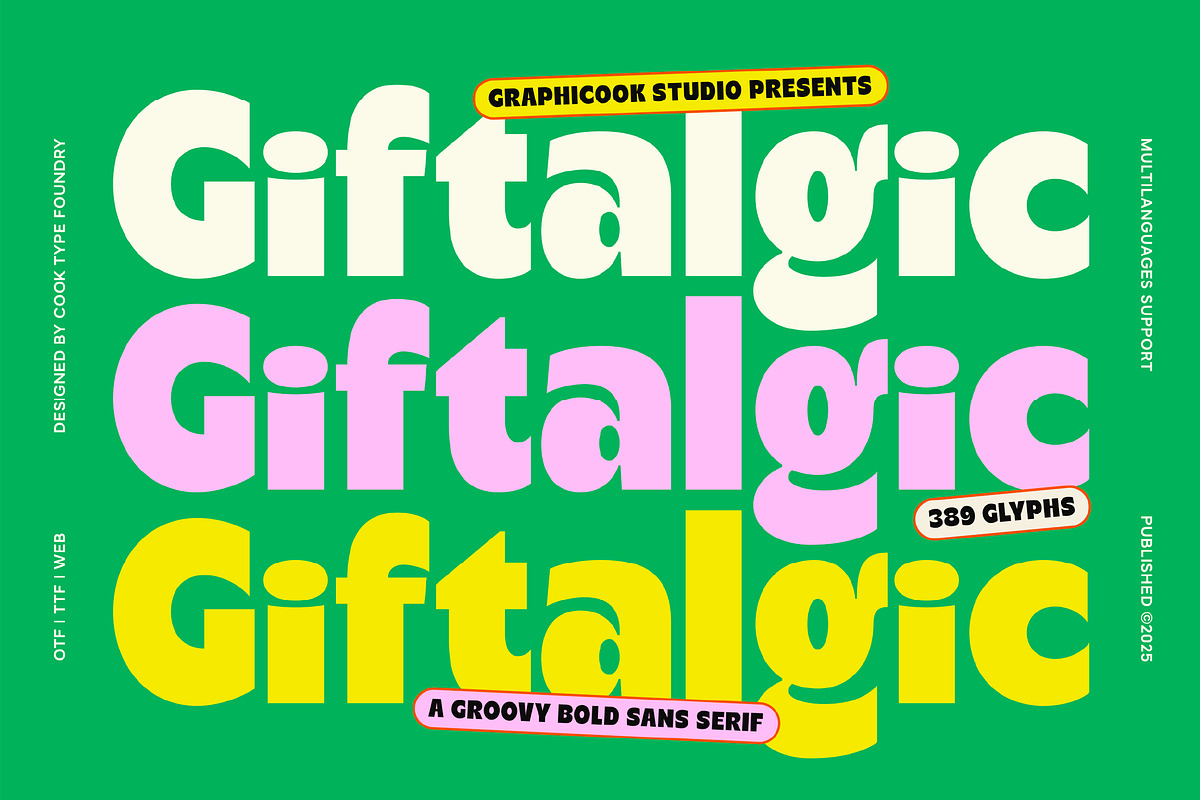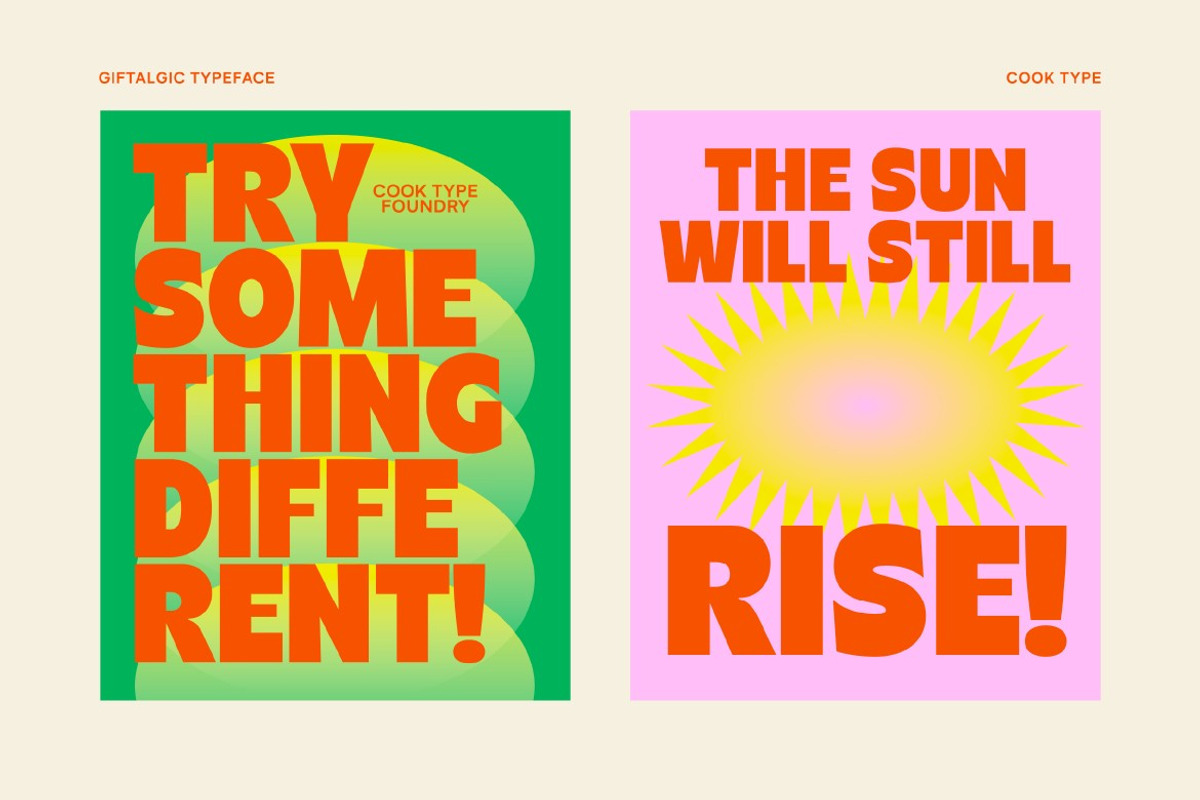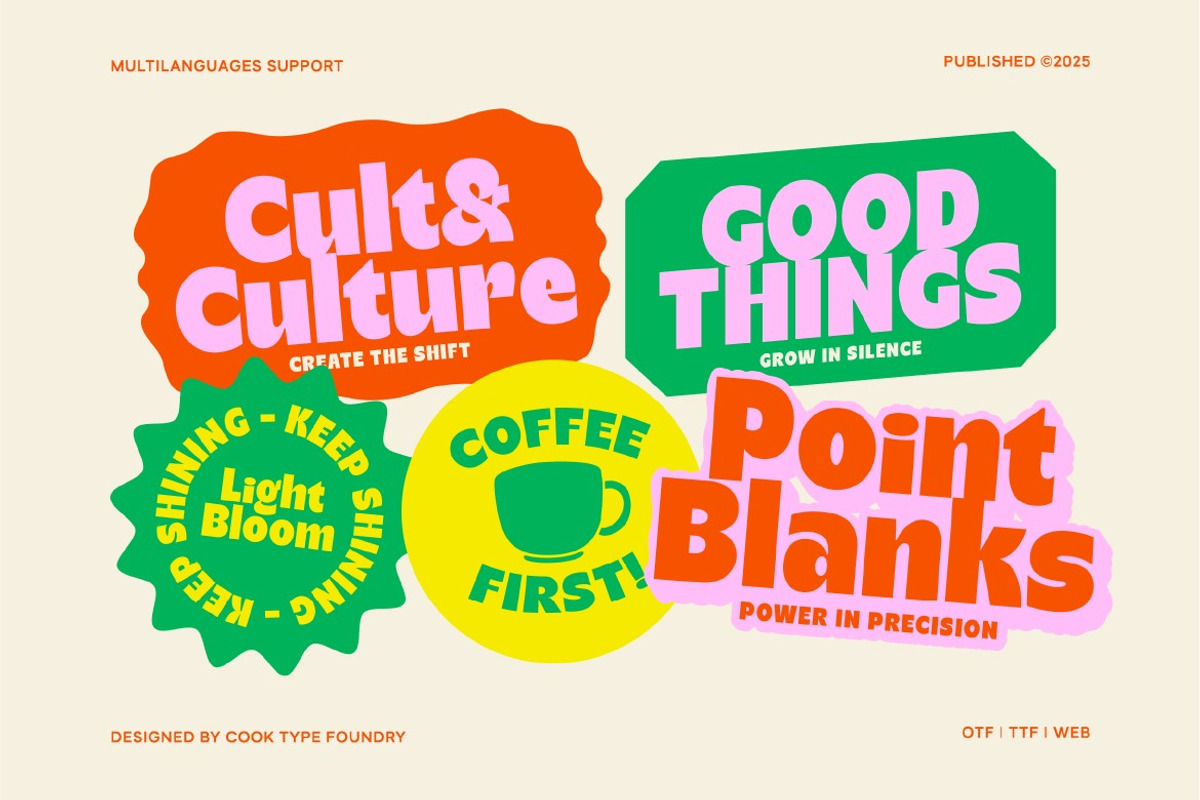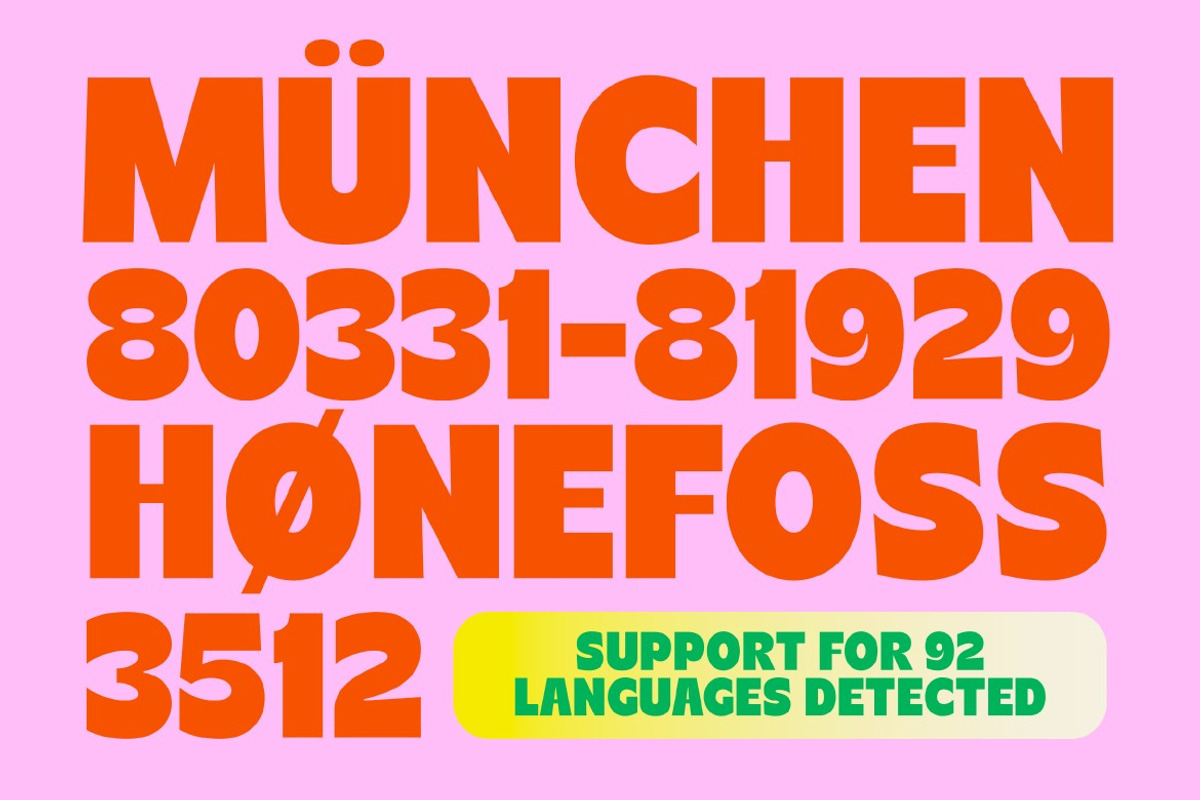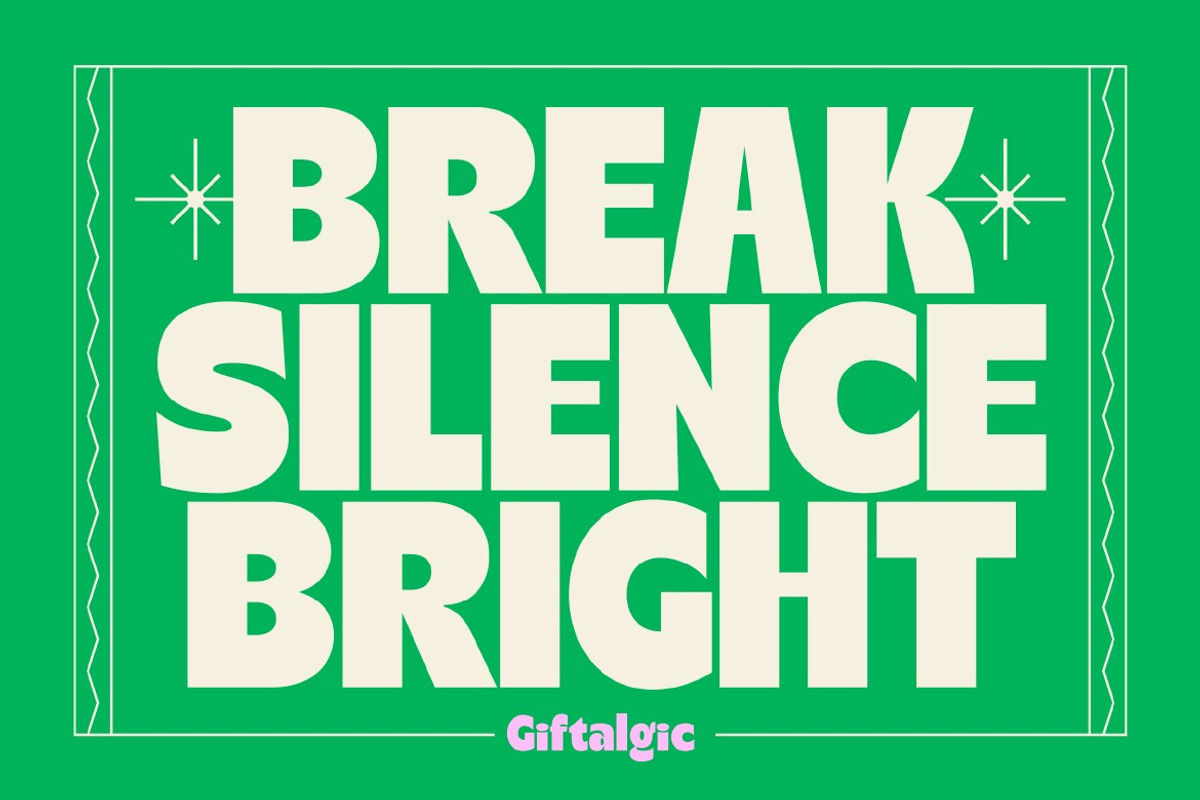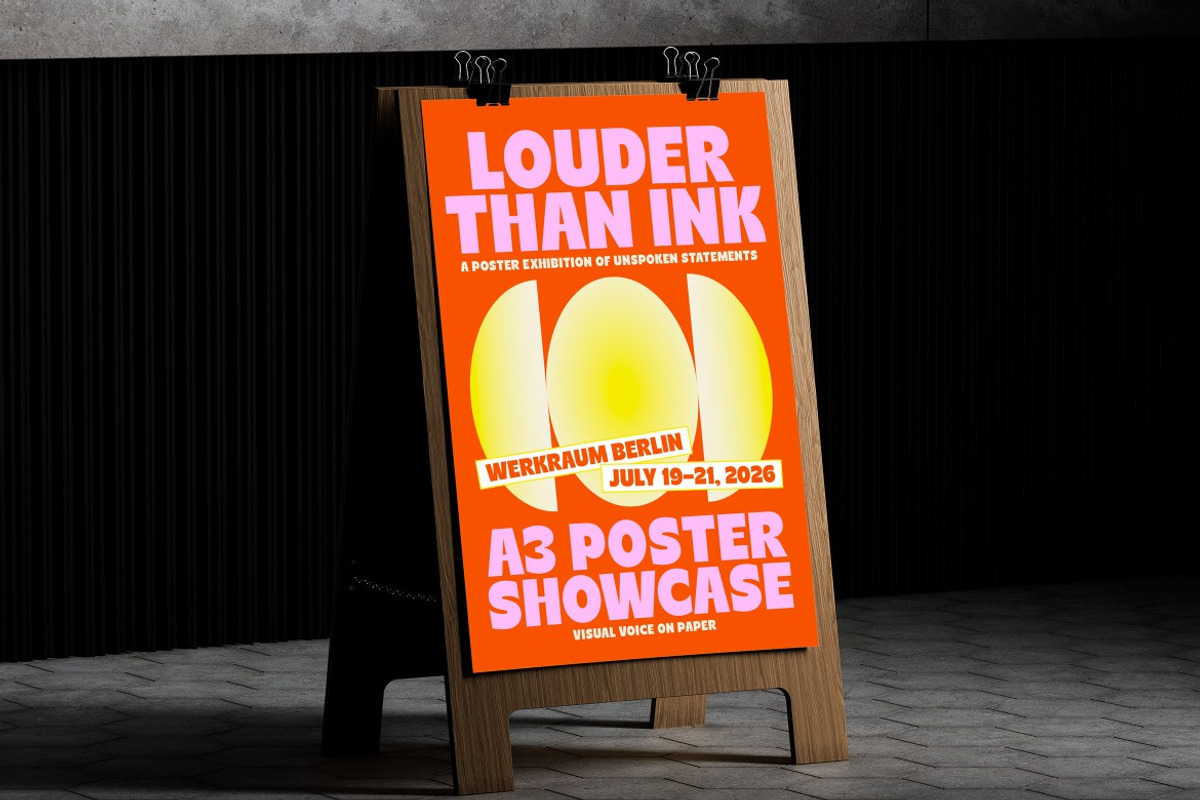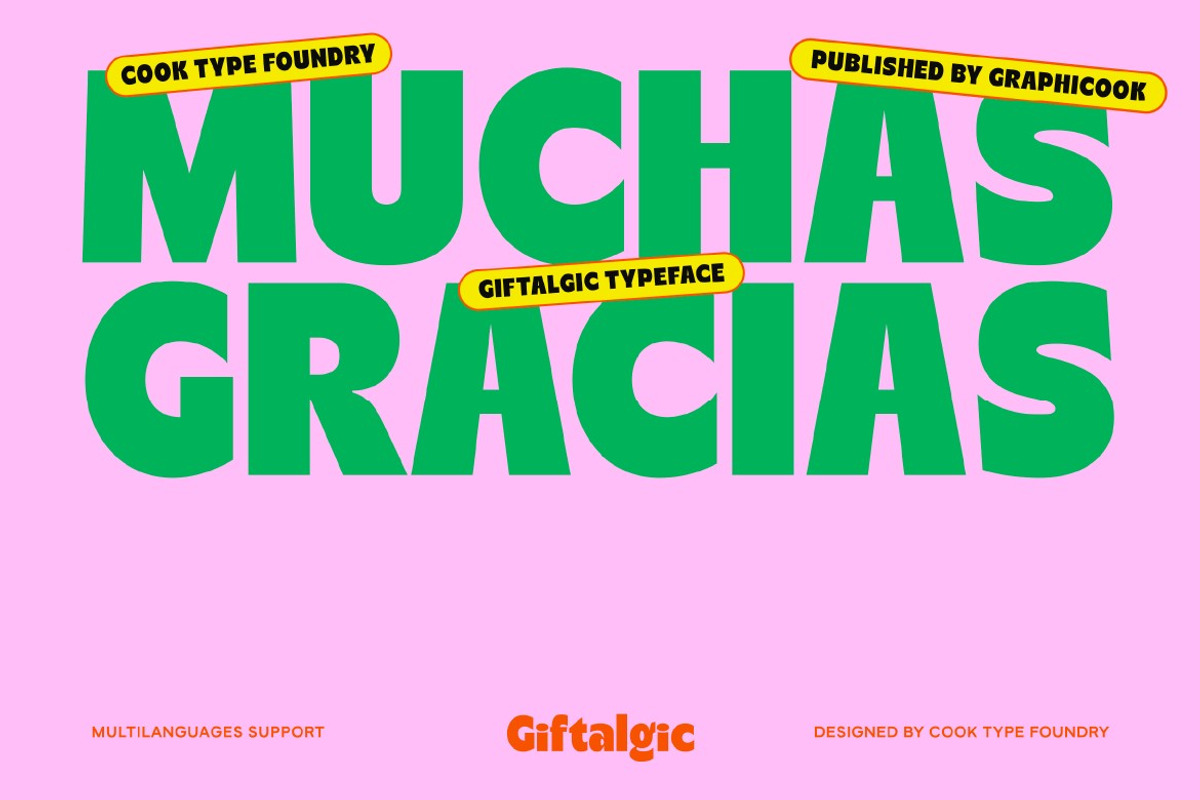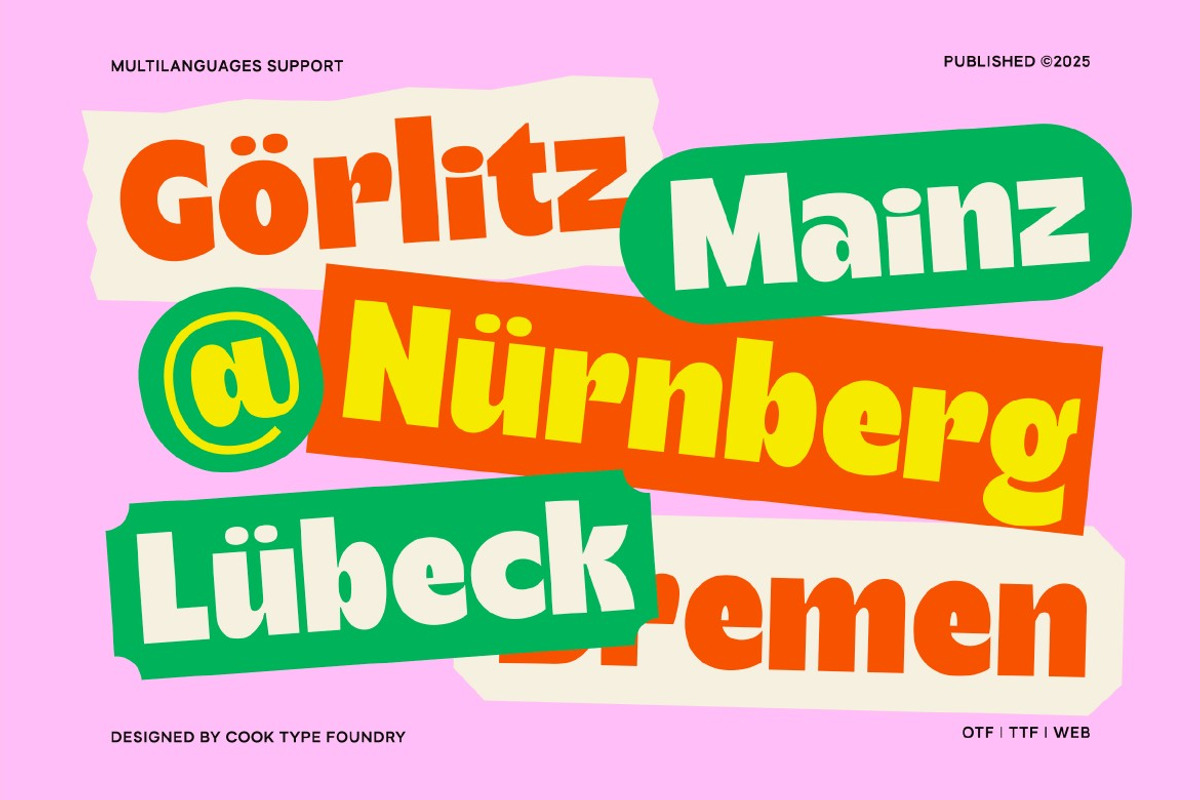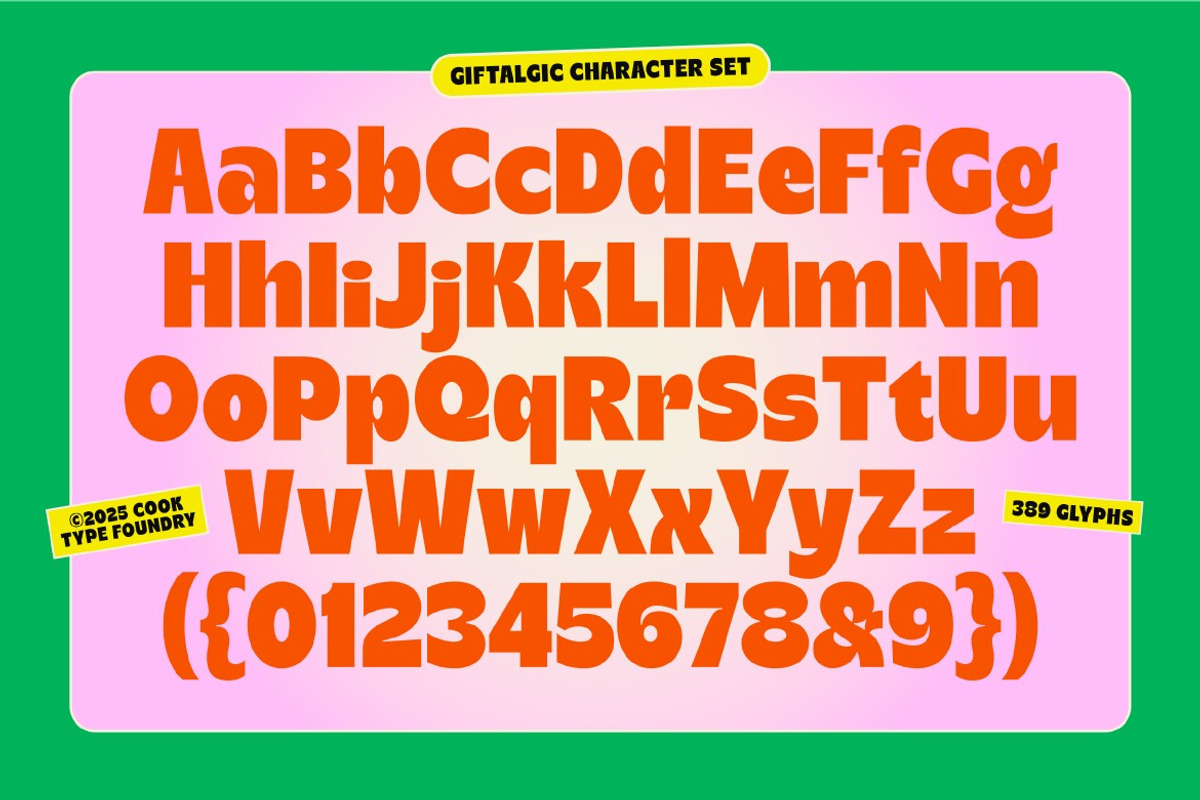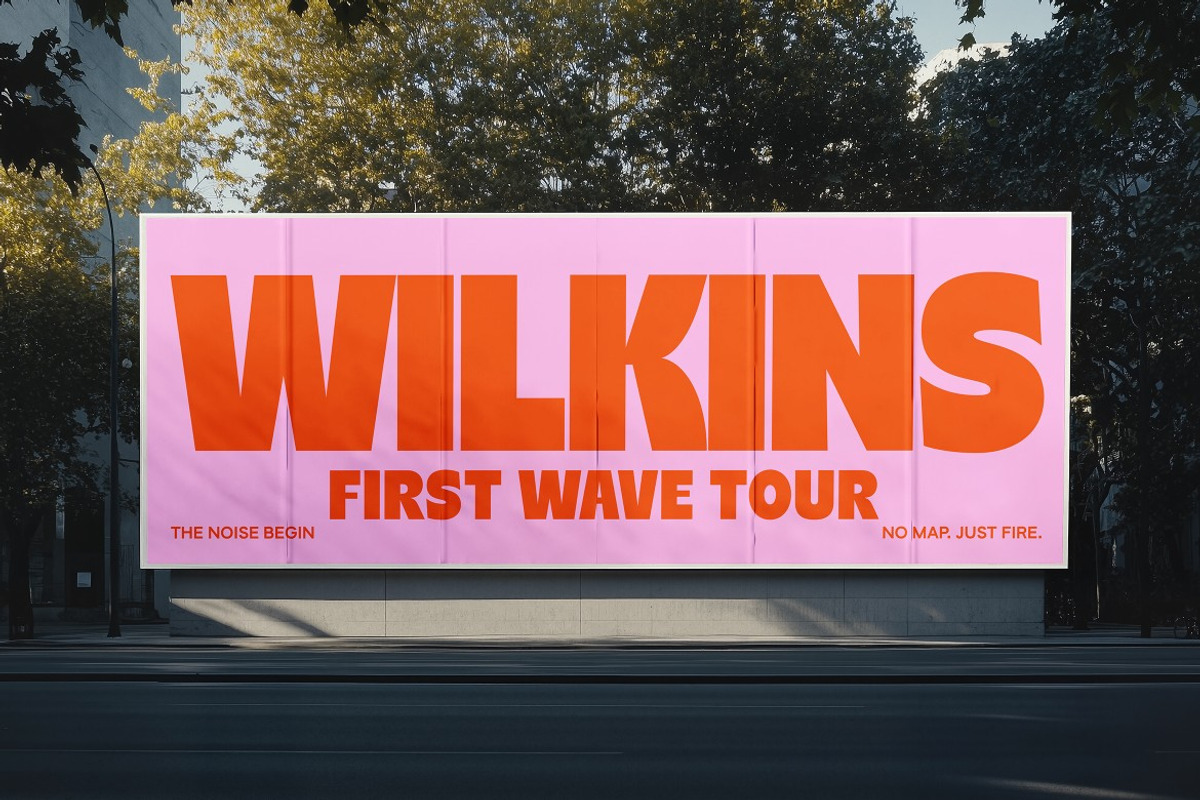
Giftalgic
Giftalgic is a bold font that blends a classic 70s vibe with a touch of modern design. It’s perfect for posters, logos, and branding that aim to feel playful and nostalgic, yet fresh and contemporary.
It is perfect for headlines, logotypes, magazines, packaging, quotes, movies, games, cover albums, book covers, and flyers, it's a perfect solution for creating eye-catching designs that stand out in any context.